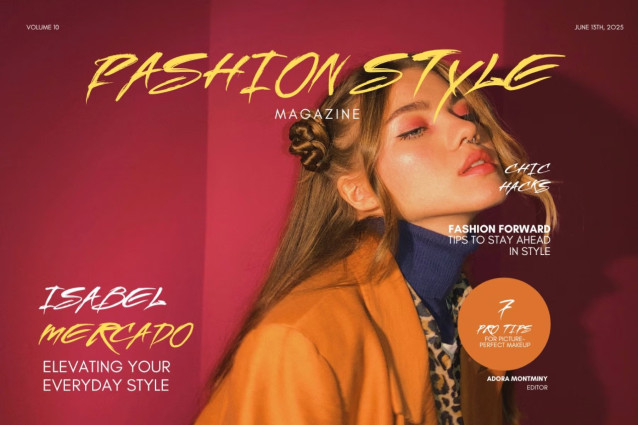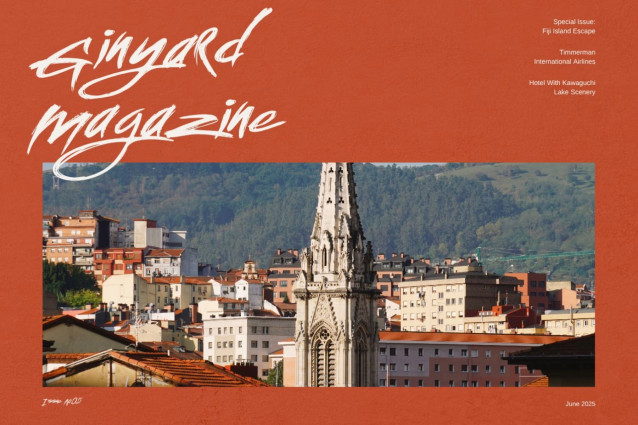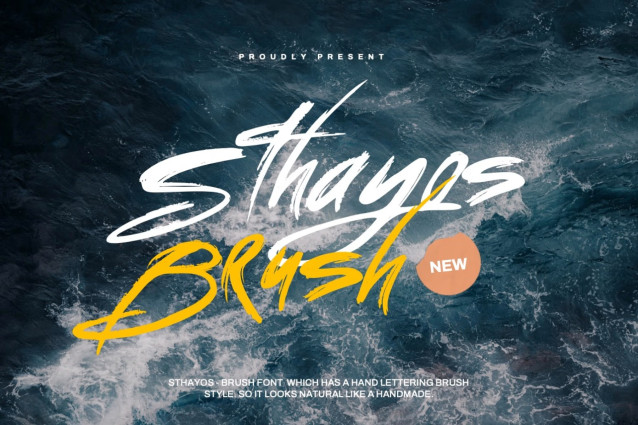
Introducing * Sthayos – Brush Font*
Sthayos – Brush Font, which features a brushstroke style for hand lettering. This gives it a natural, handmade look. The texture is highly detailed. This font is suitable for logos, product branding, printable templates, or overlaying text on any background image. It is also suitable for headline design.